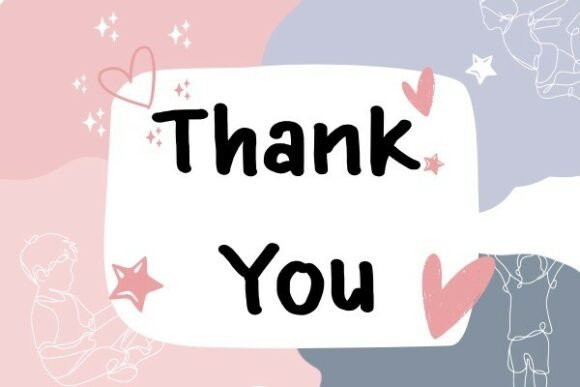
Introduction to Icepop Font
Have you ever stared at a blank canvas, desperately searching for the perfect spark to ignite your next creative project? The blank page can be daunting, but what if you had a secret design tool to unlock your full potential? Enter the enchanting world of Icepop Font, a free download that will revolutionize the way you approach your next design project.
As a valuable resource for designers, Icepop Font offers a unique blend of style and versatility, making it an essential addition to your design arsenal. Its distinctive yet minimalist appeal is perfect for a wide range of creative projects, from designing eye-catching t-shirts to crafting beautiful invitations and greeting cards. With its transparent background and high-quality design, you can add a touch of elegance to any project, making it a must-have design resource for any creative professional.
Whether you’re working on a personal project or a commercial one, Icepop Font is sure to bring a touch of sophistication and charm to your work. So why wait? Dive into the world of creative expression with Icepop Font and discover the endless possibilities it has to offer.
Key Features of Icepop Font
- Icepop Font is designed to be highly versatile and can be used in a wide range of applications, from logos to digital art.
- Features a unique and playful style, making it perfect for designers looking to add a touch of whimsy to their work.
Honest Review: Icepop Font
As a designer, I’m always on the lookout for high-quality design resources that can elevate my creative projects. Recently, I stumbled upon the Icepop Font, and I must say it’s been a game-changer. With its unique and playful style, this font is perfect for designers looking to add a touch of whimsy to their designs.
- ✨ Unique and playful design that’s perfect for creative projects
- ✨ High-quality font that’s crisp and clear
- ⚠️ The font may not be suitable for all types of designs, particularly those that require a more serious tone
- ⚠️ The transparent background option can be a bit finicky to work with
Overall, I’m really impressed with the Icepop Font. It’s a great addition to any design resource library, and I would highly recommend it to designers looking for a unique and playful font. With its high-quality design and free download option, it’s a great value for designers of all levels.
Tips for Getting the Most Out of Icepop Font
To get the most out of the Icepop Font, use it with a transparent background to create visually appealing graphics and designs. You can also pair it with other high-quality fonts to create a unique and creative project.
The Icepop Font is ideal for creating social media graphics, blog posts, and other online content. It’s also suitable for designing business cards, flyers, and brochures. With its high-quality design and versatility, the Icepop Font is a valuable resource for any creative project.